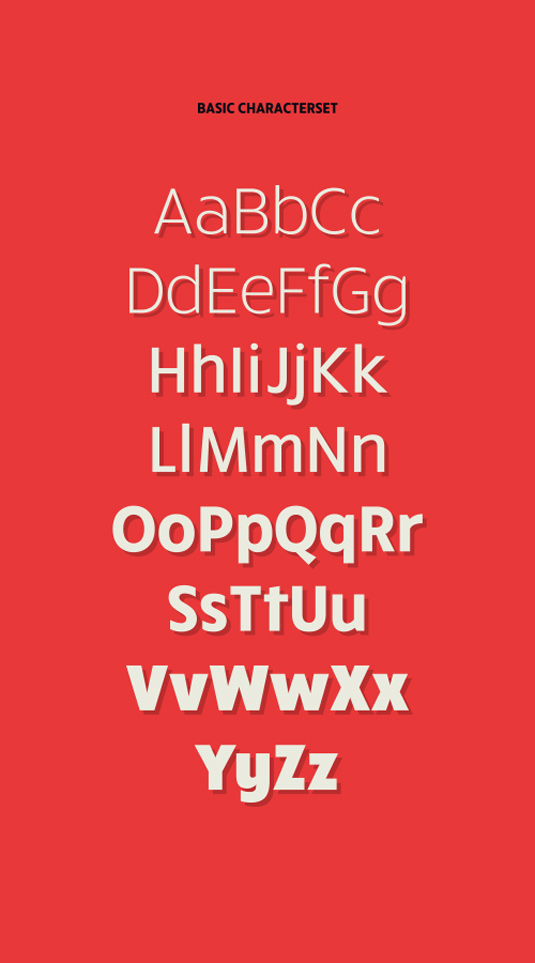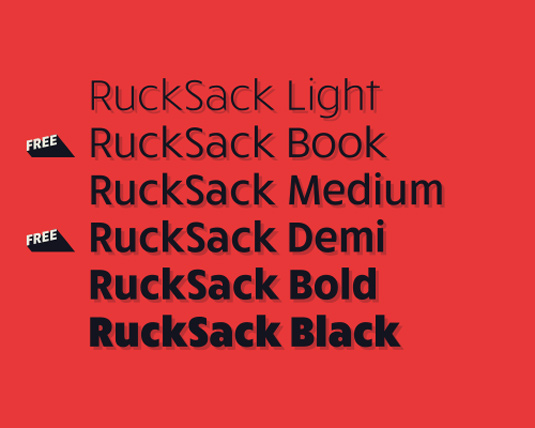
Font of the day: Rucksack
Every day we showcase the best fonts on the web. Today it's Rucksack by Jeff Schreiber.
Rucksack by Jeff Schreiber
Today's font of choice, Rucksack, was created by graphic and type designer Jeff Schreiber. "RuckSack is a geometric typeface," he comments on Behance. "It consists out of simple and clean shapes with some visual corrections for legibility."